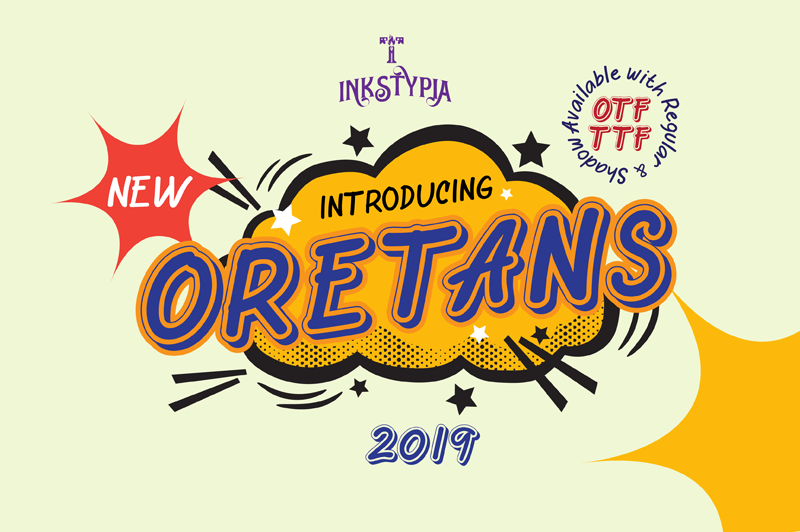
Introducing Oretans, it's a typeface inspired by handwritten scratches, a simple, straightforward and childish. This letter is equipped with a 3D style that is suitable for your display letter needs, available in TTF and OTF formats and also comes with multi-language features. here is our donation link: https://paypal.me/andiwinarno Any donation are very appreciate ++++++++++++++++++++++++++++++++++++++++++++++++++++++++++++++++++++++++++++++++++++++++++++++++++++++++++++++++++++++ Follow us on Facebook : @inkstypia.std Instagram : @inkstypia Behance : https://www.behance.net/inkstypia Or drop an email to : inkstypia@gmail.com Visit Our Store: Fontbundles : https://fontbundles.net/inkstypia Creative Fabrica : https://www.creativefabrica.com/designer/inkstypia/ Creative Market : https://creativemarket.com/inkstypia The Hungry JPEG : https://thehungryjpeg.com/store/inkstypia |